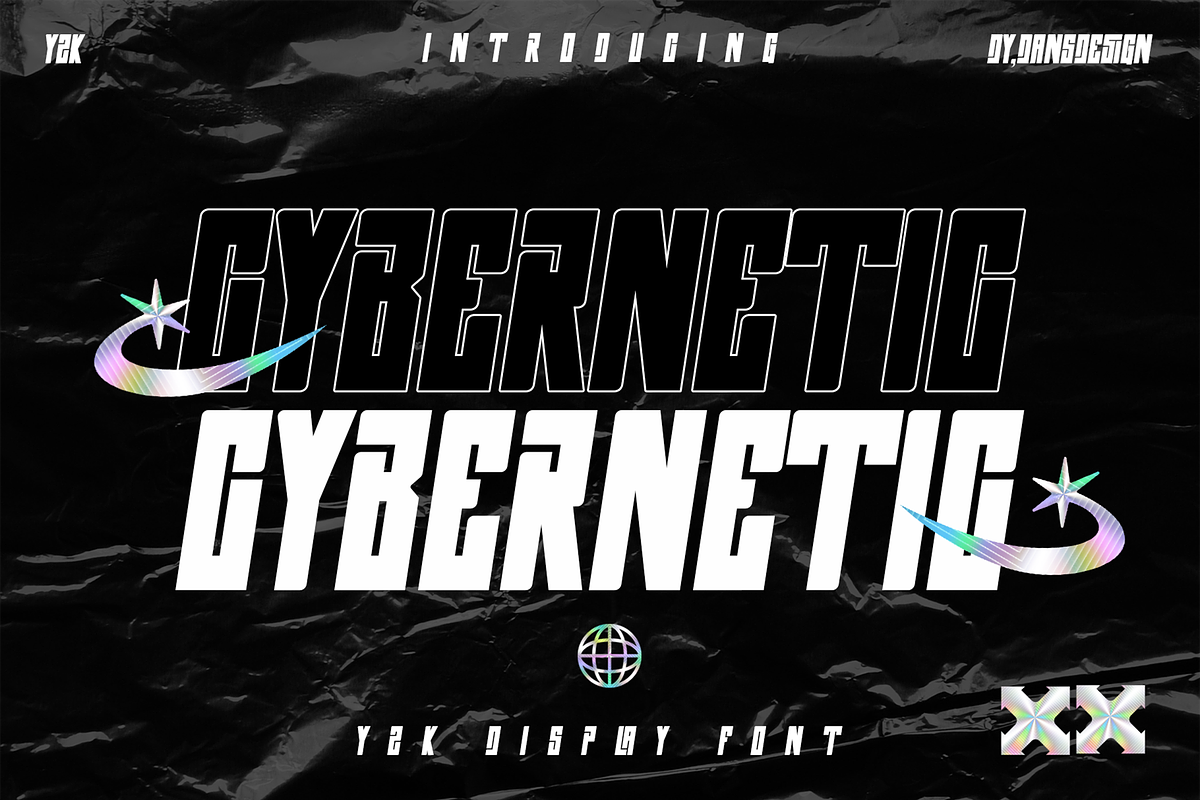
CYBERNETIC futuristic Y2k Cyberpunk Free Download
CYBERNETIC Futuristic Y2K Cyberpunk Font Free Download
CYBERNETIC Futuristic Y2K Cyberpunk Font Free Download is a high-tech, edgy typeface that channels the raw energy of early 2000s tech culture and the sleek aesthetic of cyberpunk worlds. With sharp lines, digital distortions, and glitch-inspired elements, this font is perfect for gaming logos, sci-fi posters, techno music artwork, and anything that needs a bold, futuristic impact.
Whether you're designing for a synthwave brand, a cyber-themed event, or digital art that pushes visual boundaries, CYBERNETIC delivers a perfect mix of nostalgia and forward-thinking style. It’s ideal for both print and digital projects that want to tap into that retro-futuristic vibe. You can test it with a free download, but a commercial license is required for professional use.
Level up your visuals with CYBERNETIC Futuristic Y2K Cyberpunk Font Free Download and bring your designs into a neon-drenched, tech-driven future. This font isn’t just a style—it’s a full-on aesthetic experience.